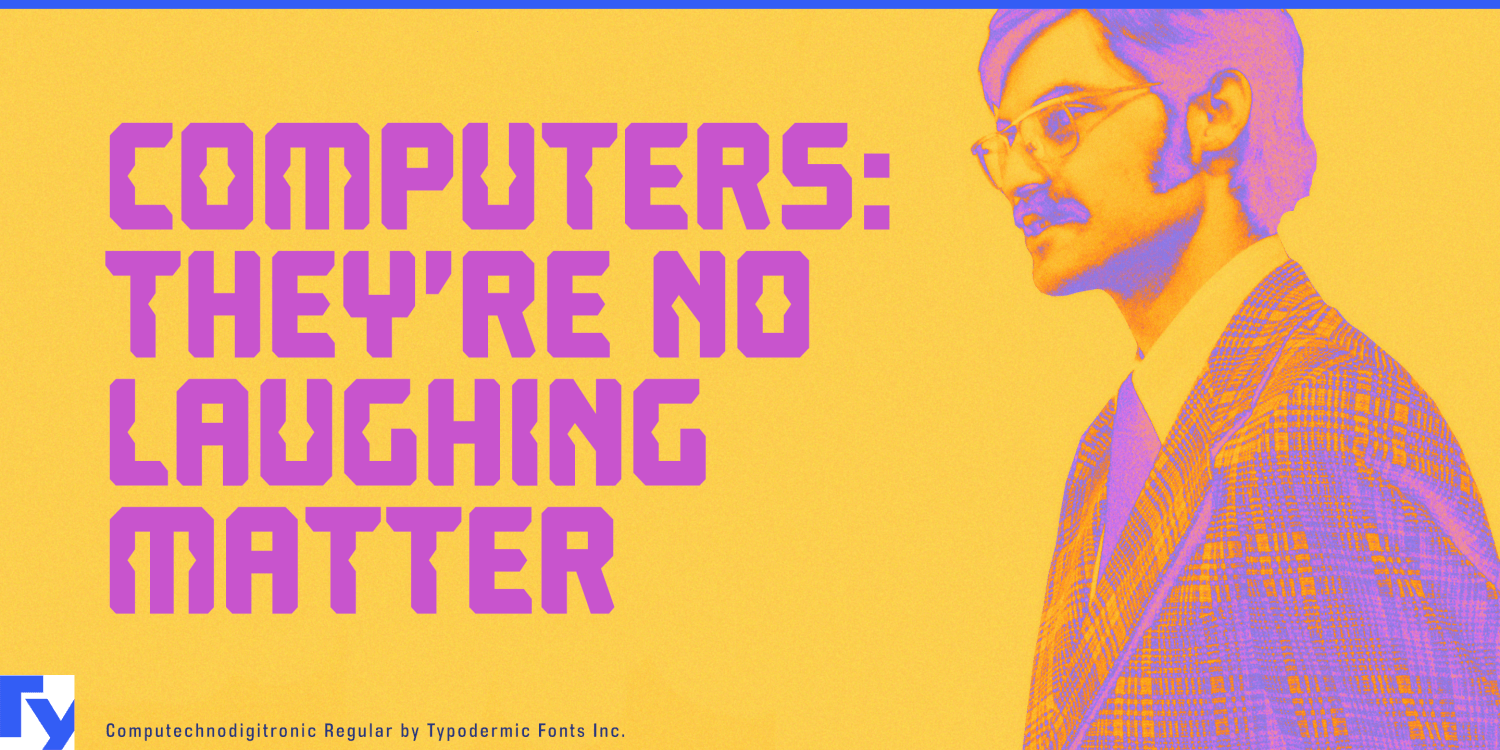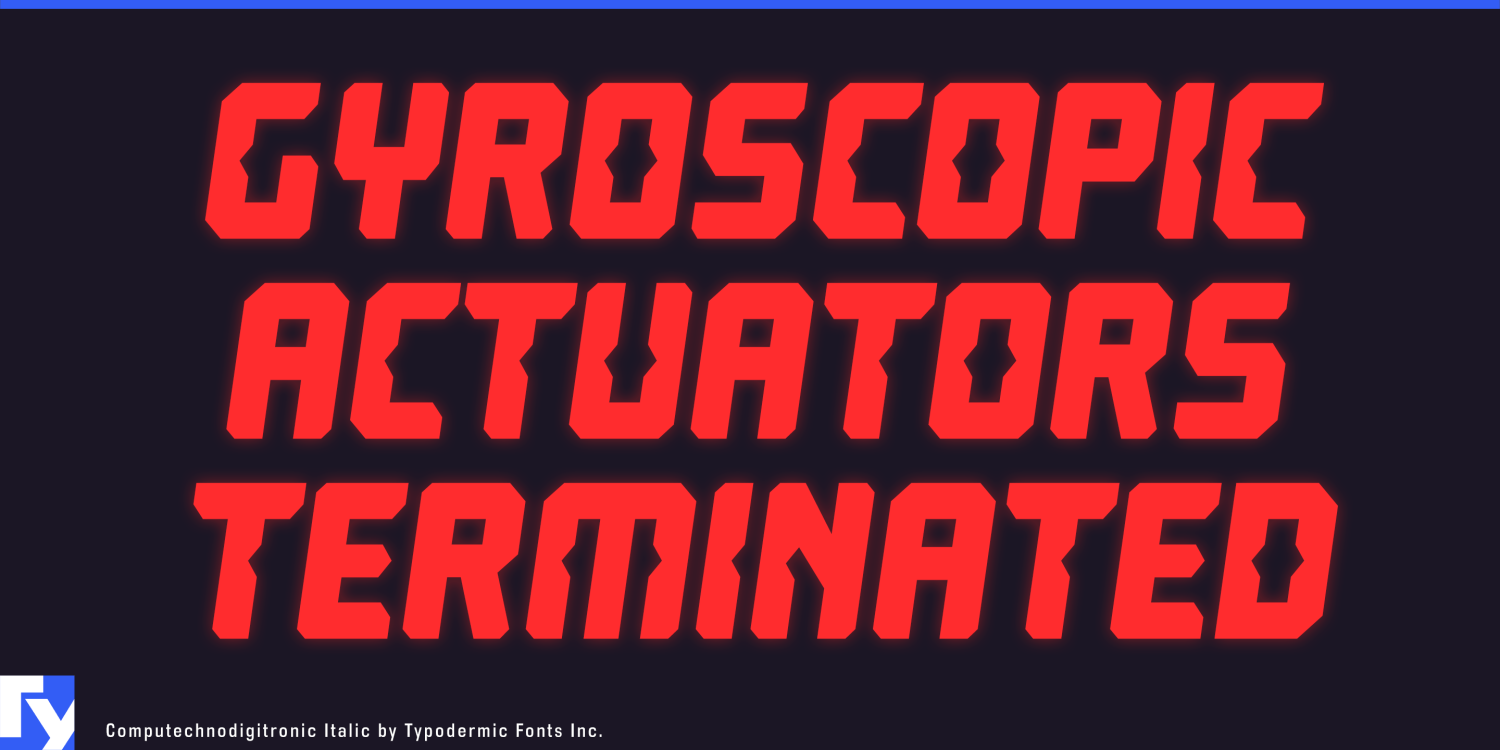
About Computechnodigitronic
Step into the future with Computechnodigitronic, a typeface that brings the sleek aesthetics of 1980s sci-fi to life. This segmented LED/LCD display font seamlessly blends retro charm with modern design sensibility, creating a visual language that speaks…